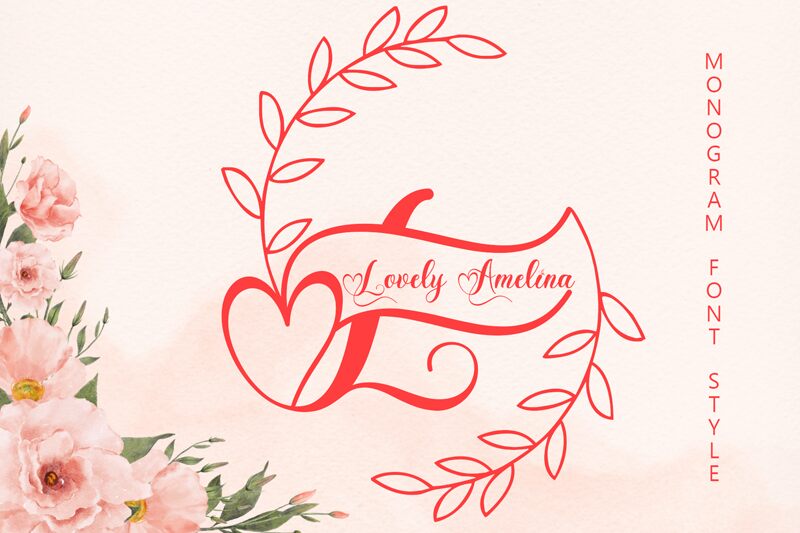
Lovely Amelina Monogram font family designed by Yoga Letter consists of 2 font styles that are free for personal use. It is a romantic and fancy font with a delicate hand to it. It contains ornaments and stylistic alternates to allow the maximum design space possible. The designs made with this font are both sophisticated and expressive.
The font could be used for romantic cards, invitations, monograms, digital designs, weddings, clothing branding, wall quotes, lifestyle magazines, YouTube, and Instagram purposes. If all these project types sound good, then consider downloading the free font.